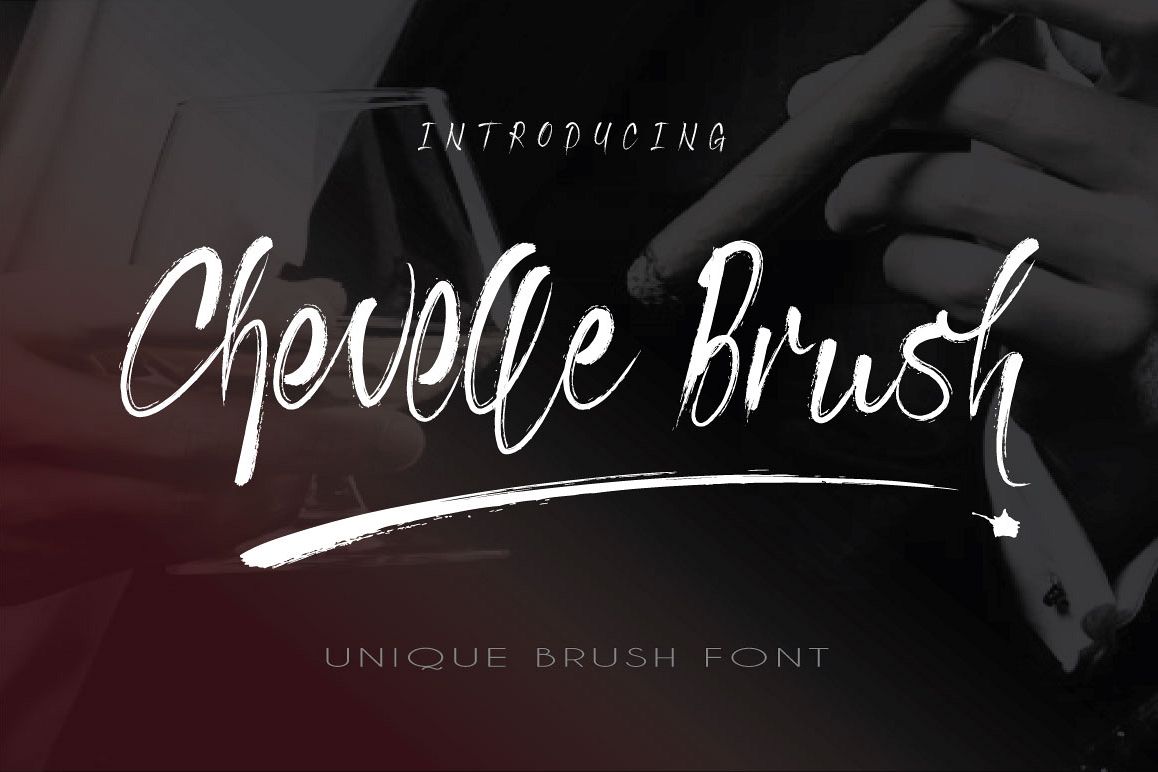
Chevelle Brush
Chevelle Brush is an unique brush typeface. Suitable for your event, greeting cards, design of water-based paints, signature, logo, correspondence, and a variety of other purposes.